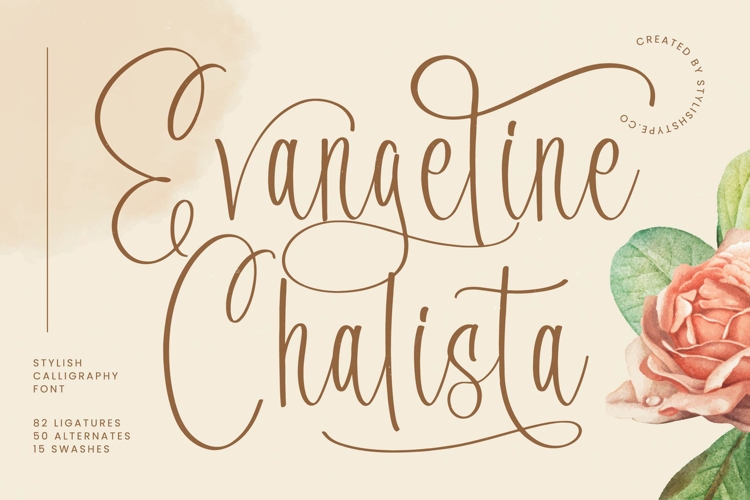
Evangeline Chalista - Stylish Calligraphy Font
Evangeline Chalista is a stylish calligraphy font that combines graceful strokes with timeless elegance. With its ornamental swashes, refined ligatures, and flowing rhythm, this font is designed to add a touch of luxury and romance to any project. Featuring 82 ligatures, 50 alternates, and 15 swashes, Evangeline Chalista offers designers endless possibilities for creating unique and captivating lettering compositions.
This typeface is perfect for branding. Ideal for luxury logos, boutique shops, artisan products, wedding brands, and fashion labels, Evangeline Chalista communicates sophistication and refinement. Its calligraphic essence ensures that branding projects stand out with elegance and memorability, making it a signature choice for premium markets.
In editorial and publishing, Evangeline Chalista adds artistry and romantic charm. Magazines, book covers, lifestyle features, and creative zines benefit from its stylish flow and graceful details. It creates editorial layouts that are visually stunning while maintaining high readability, giving designs a polished, elegant look.
For web typography, this calligraphy font integrates seamlessly into blogs, websites, online shops, and social media platforms. Its handwritten style ensures that digital media projects feel authentic, stylish, and professional, enhancing the online presence of modern brands.